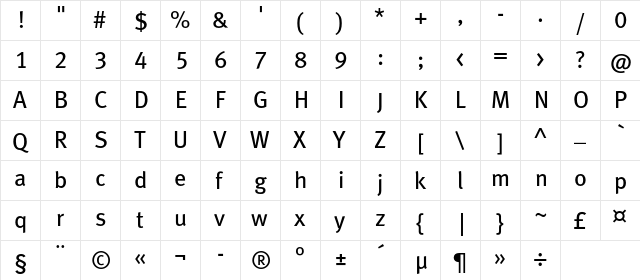
MetaBookLFC Regular
MetaBookLFC takes a measured approach to typography — its balanced proportions and neutral character make it a reliable workhorse for both digital and print work.